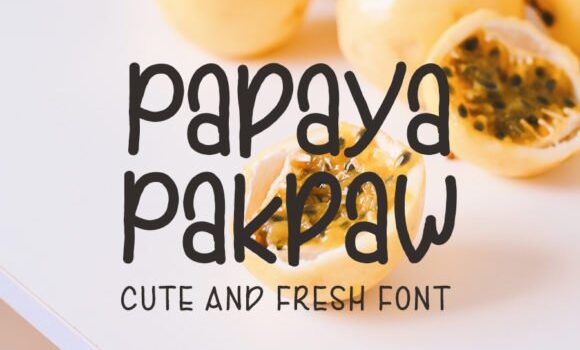
Papaya Pakpaw Font – Free Download Introduction to Papaya Pakpaw Font PaPaya Pakpaw is a modern and fresh handwritten font. 📸 Preview Gallery 5 images 📌 Product Name Papaya Pakpaw Font 👤 Author FL Space 📂 Category Explore ⬇️ Download